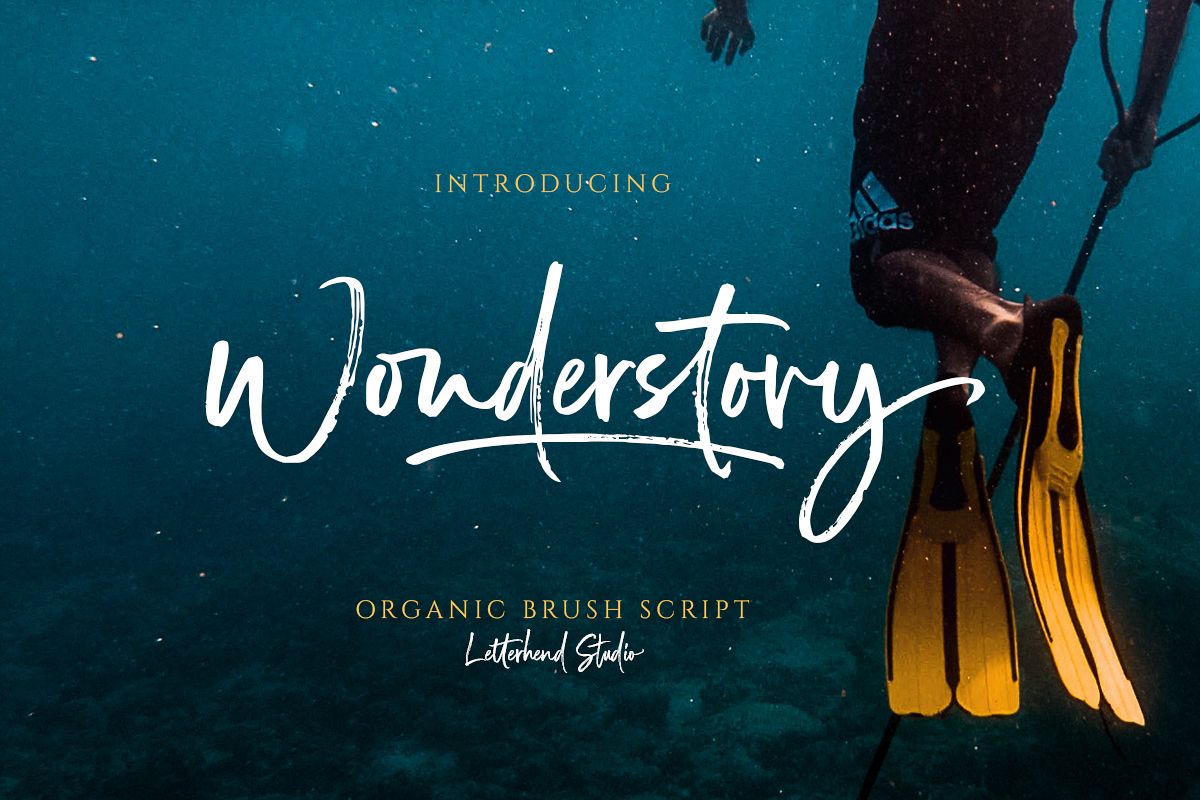
Wonderstory - Brush Script
Wonderstory Alt
Wonderstory
Introducing, Wonderstory. An 'organic' brush script. The brush texture gives the natural feel that make it looks like a manual hand written. They works perfect for you who needs a typeface for headline, logotype, apparel, invitation, branding, packaging, advertising etc. This typeface is comes in uppercase, lowercase, punctuation, symbols, numerals, stylistic set alternate, ligatures, etc also support multilingual.